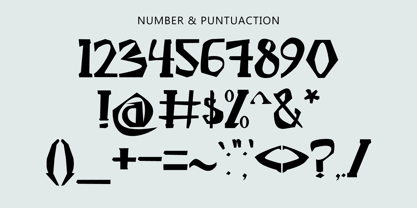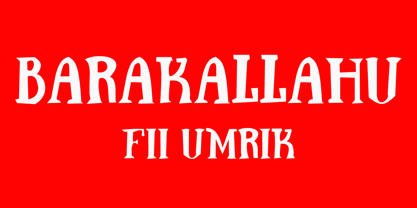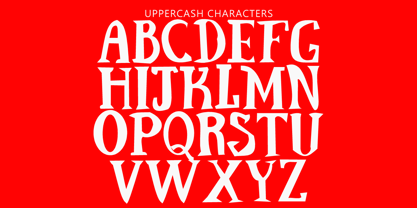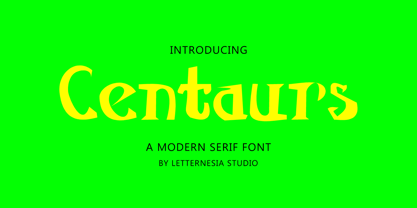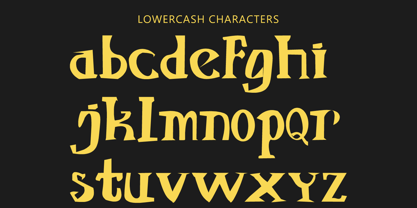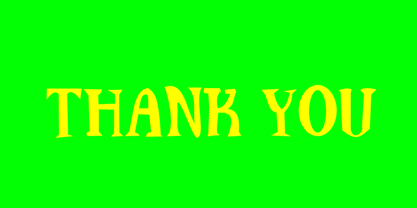
Centaurs
by Letternesia studio
The Centaurs Font Family was designed by Ta Siyo and published by Letternesia studio. Centaurs contains 1 styles. More about this family
Centaurs is a serif-style font that blends strength and elegance, inspired by the mythical creature Centaur—a symbol of bravery and refined power. With classic letterforms infused with modern detailing, Centaurs is perfect for editorials, logos, film titles, or any design aiming to convey a majestic and intellectual tone.
The font features well-balanced proportions, sharp yet tasteful serifs, and a dynamic contrast between thick and thin strokes. Centaurs evokes a bold yet artistic atmosphere—ideal for projects that seek a harmony between tradition and contemporary style.
Designers: Ta Siyo
Foundry: Letternesia studio